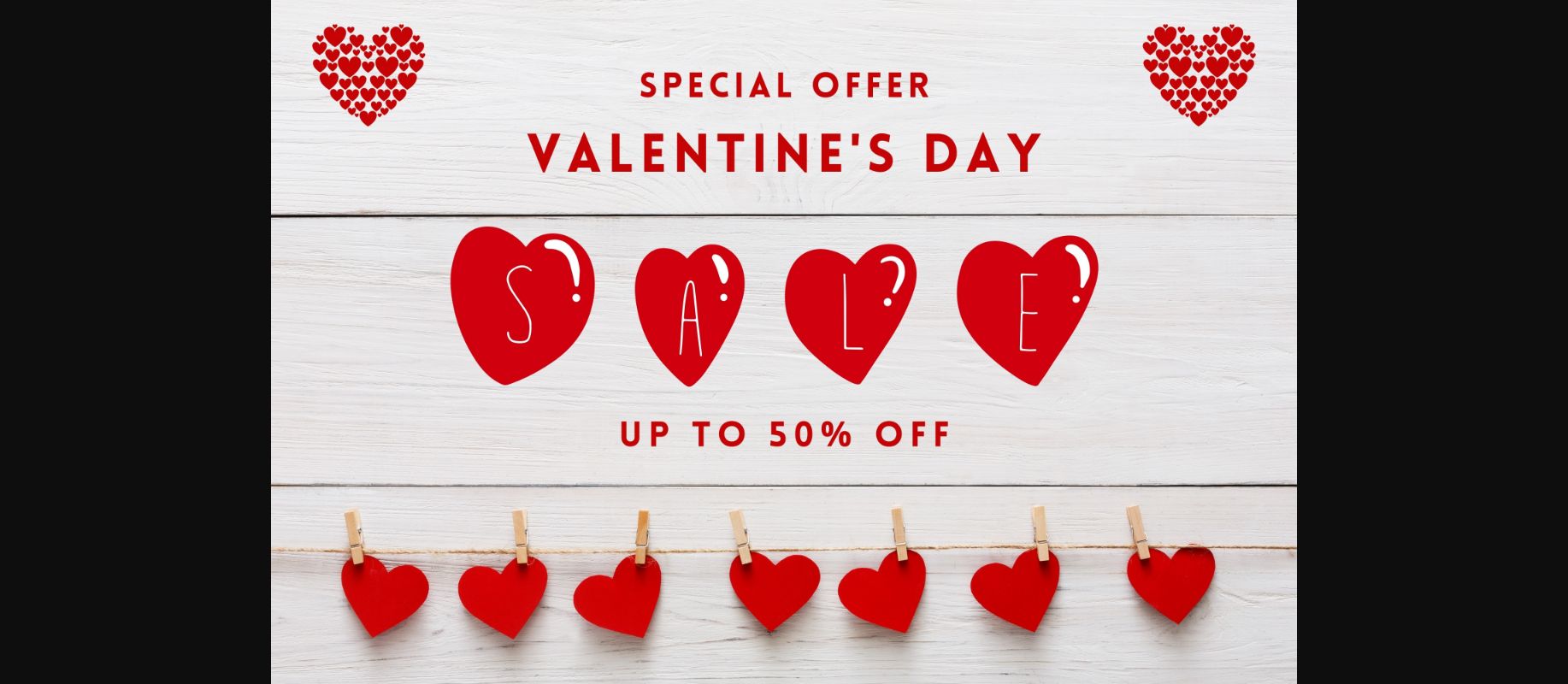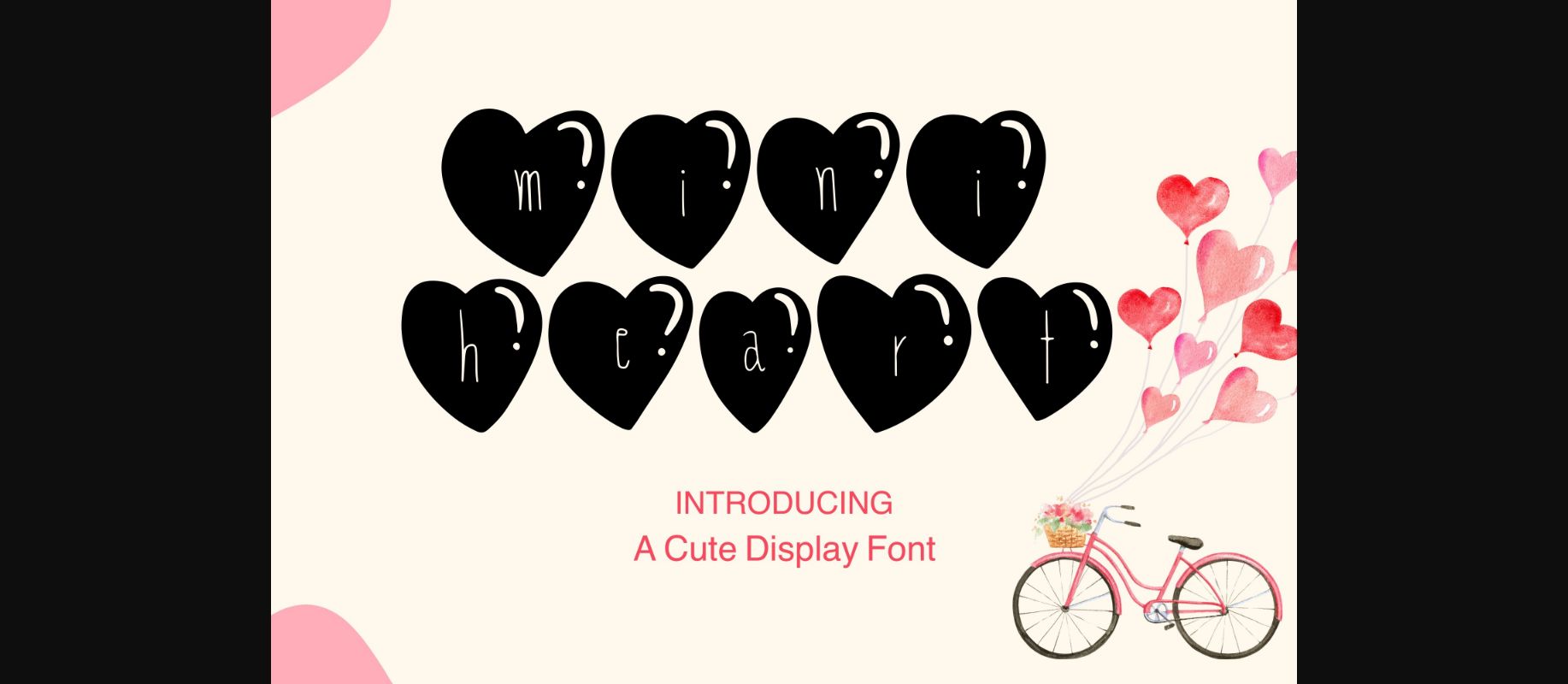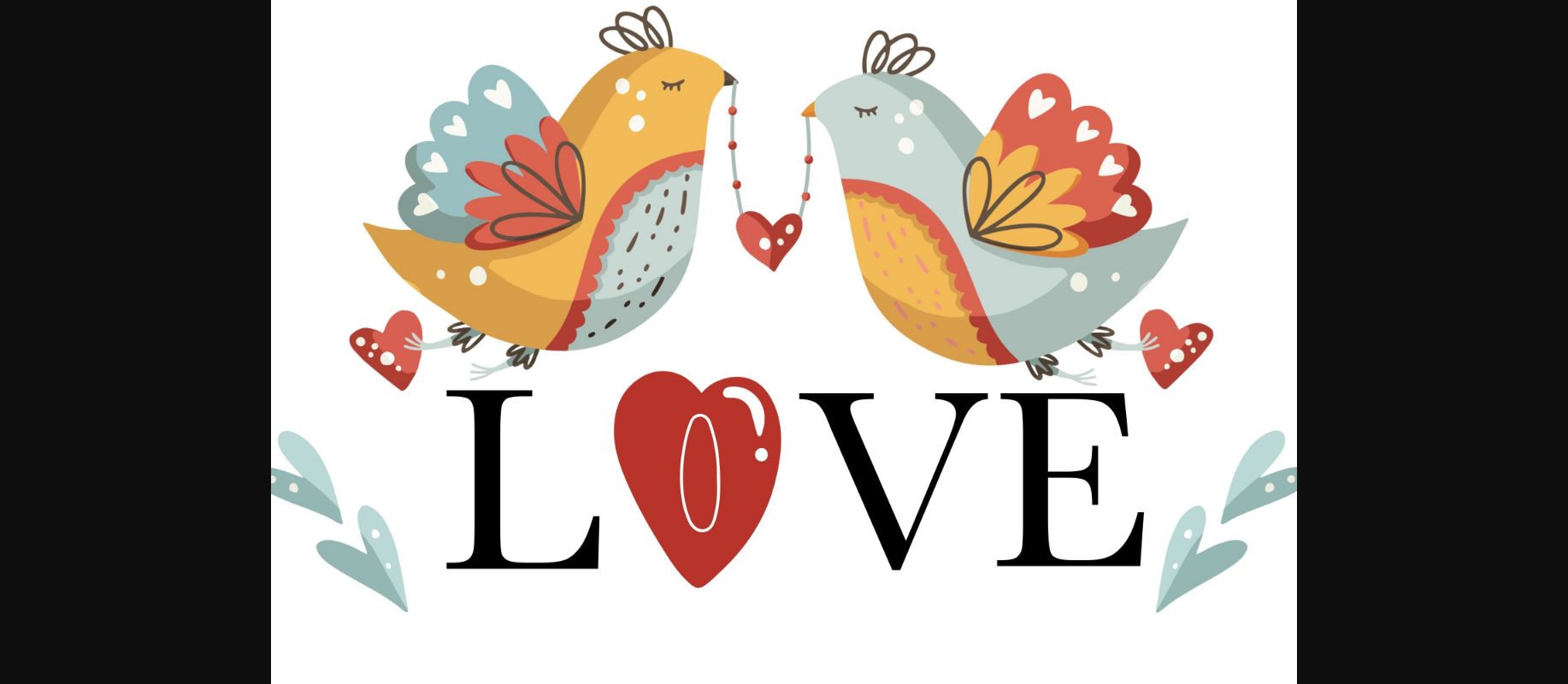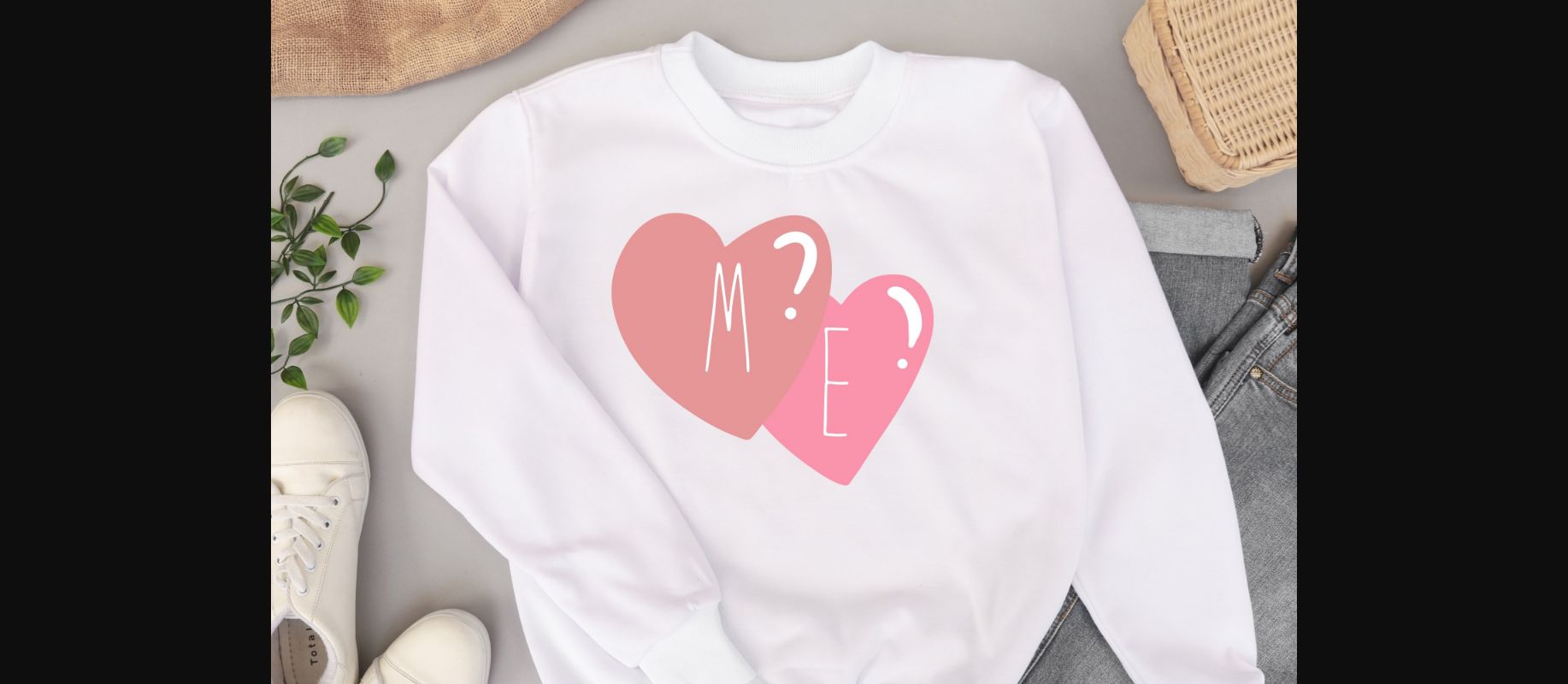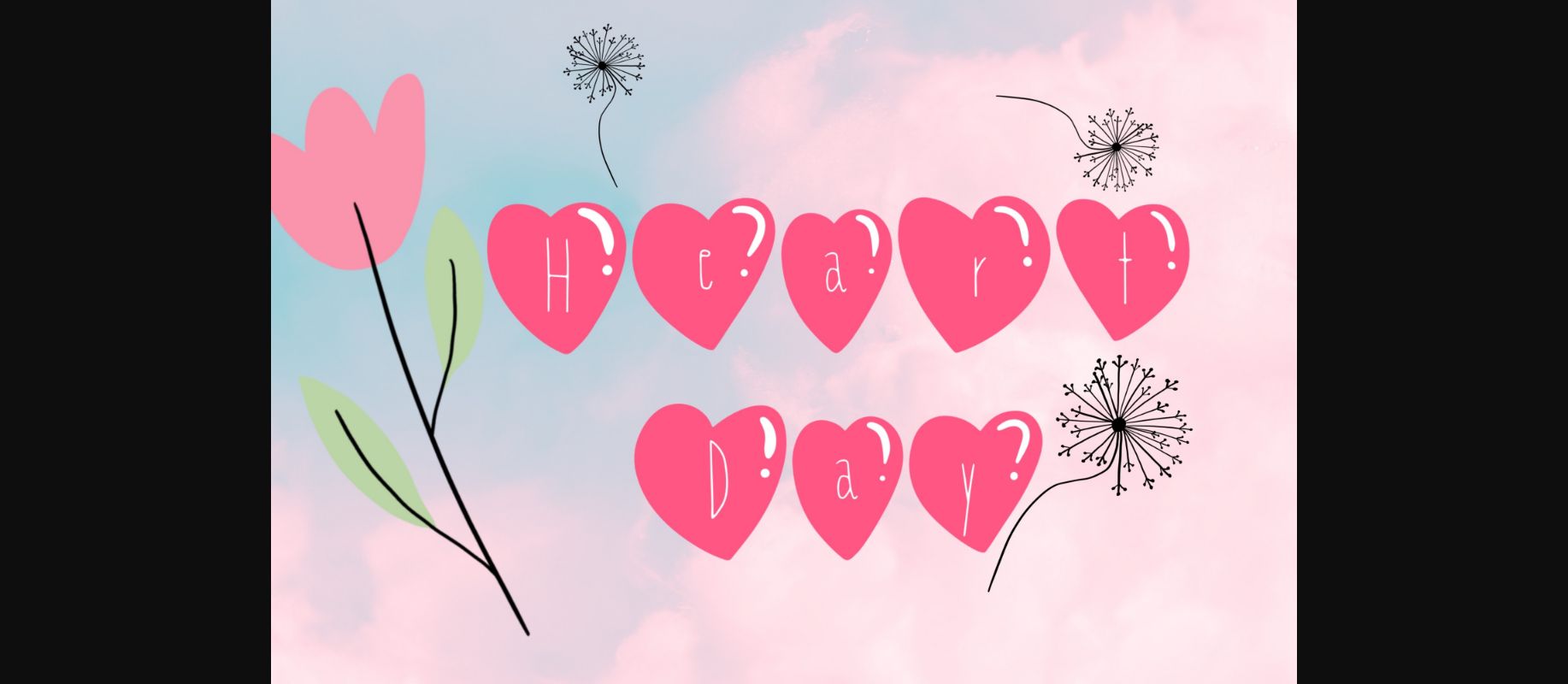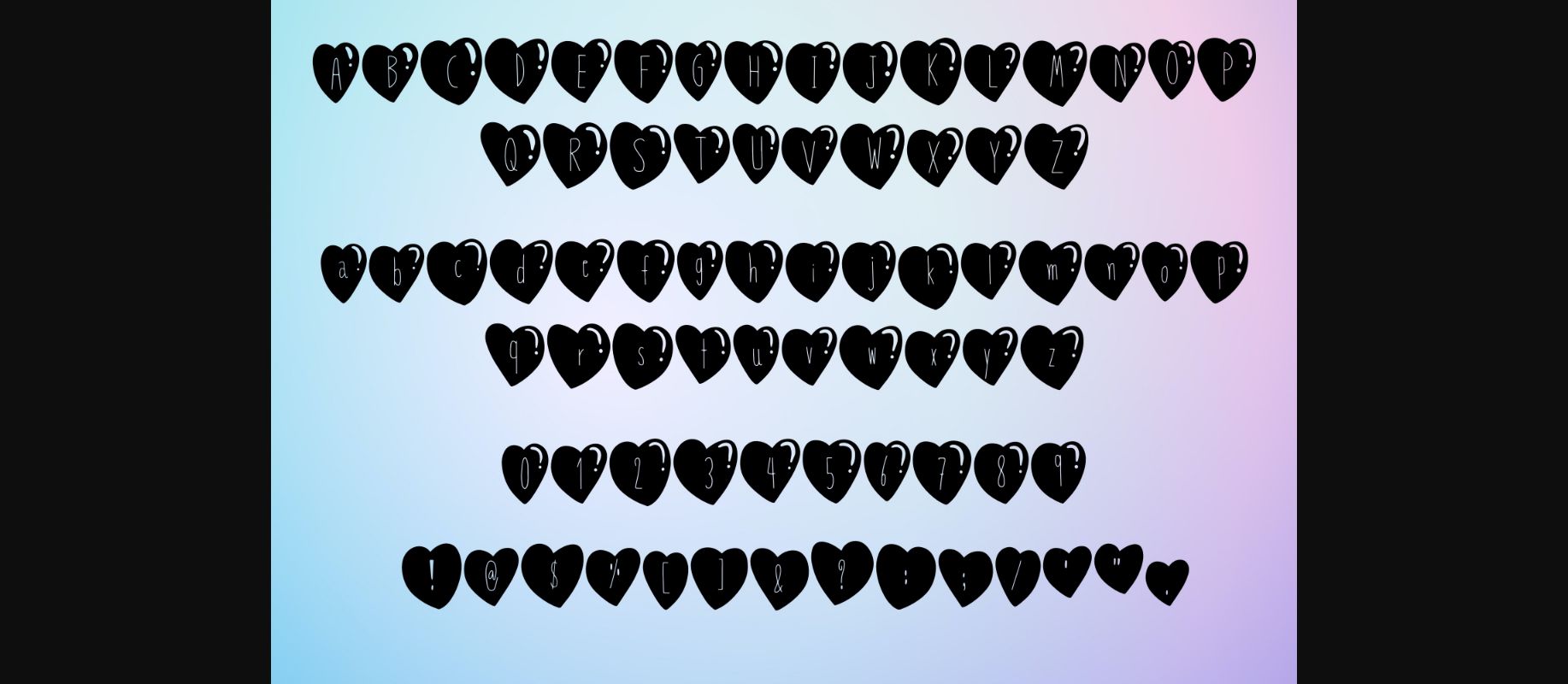
HomeDecorative FontsMini Heart Font Decorative Fonts Mini Heart Font FacebookXPinterestWhatsApp 1 of 9 ... Mini Heart Font Poster 2... Mini Heart Font Poster 3... Mini Heart Font Poster 4... Mini Heart Font Poster 5... Mini Heart Font Poster 6... Mini Heart Font Poster 7... Mini Heart Font Poster 8... Mini Heart Font Poster 9... About Mini Heart Font Mini Heart is a cute and playful decorative font. It embodies joy and authenticity and is the perfect choice for any children’s activity or school project. DOWNLOAD NOW People also explored Kuntry Euforica Font Spacearella Hound Stooth Font Block Font Engranajes Family Font Short Giffers Font Serendipity Font Cat and Dog Font 269 0 TagsMini Heart Font Previous articleHeart Memory FontNext articleAirlove Font LEAVE A REPLY Cancel reply Comment: Please enter your comment! Name:* Please enter your name here Email:* You have entered an incorrect email address! Please enter your email address here Website: Save my name, email, and website in this browser for the next time I comment. Personal Use Free City Tour Personal Use Free Read more about this font Gonestones Personal Use Free Read more about this font Gila Personal Use Free Read more about this font Crellia Script Personal Use Free Read more about this font BLOG Free Fonts Risk: Why Free Fonts Can Be Dangerous for Designers Free Fonts Risk: Why Free Fonts Can Be Dangerous for Designers Using free fonts is a common practice in web and graphic design. However, the... Free vs Paid Fonts: Why Investing in Premium Fonts Is Worth It How to Install and Use Fonts on Windows, macOS, and Web Projects To increase your work productivity, choose the most readable fonts.